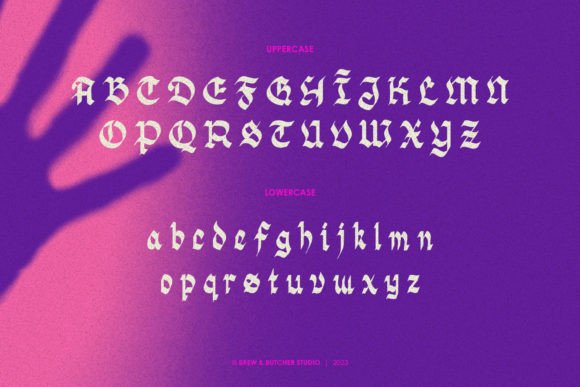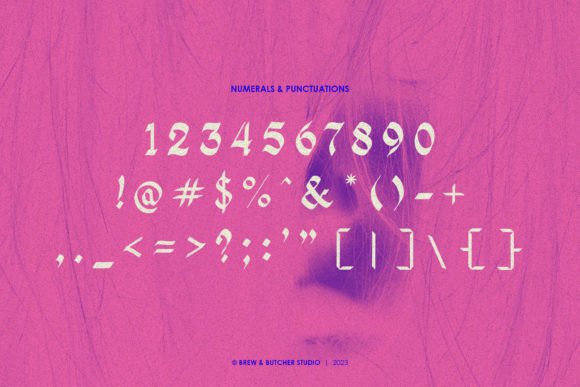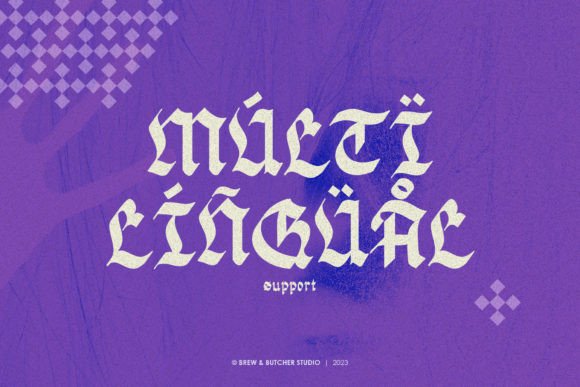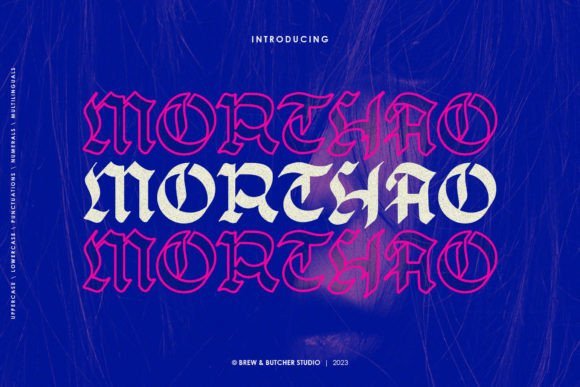
Introduction to Morthao Font
Morthao is a black letter calligraphy with a smooth corner style.
This font seems to have a slightly darker feel but still has characteristics when applied with a cheerful and fun design This font is best to use for headers or headlines, posters, flyers, banners, landing pages, portfolios, name writing, album covers, etc.